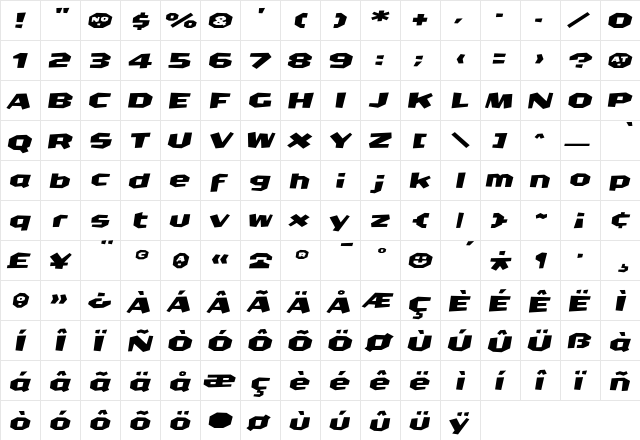
CrashBangWallop MedIta
Design Context for CrashBangWallop Typeface
CrashBangWallop offers clean, dependable letterforms without strong stylistic allegiance, making it a practical choice for designers who need flexibility.